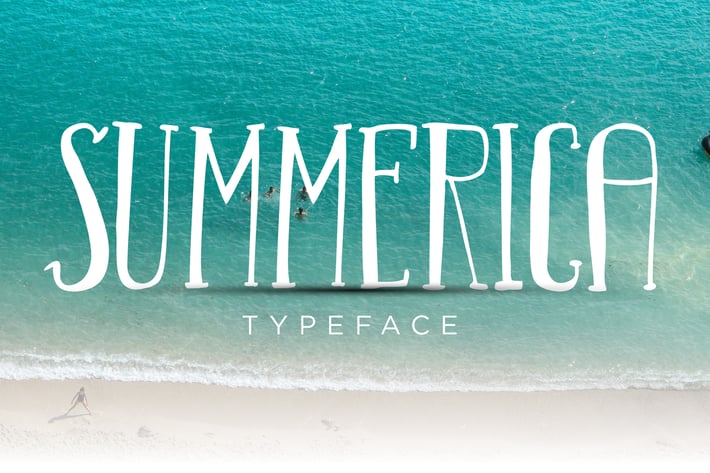
Summerica Typeface
Give your designs an authentic handcrafted feel. “Sumerica Typeface” It will be great for Logotypes, Posters, Digital Lettering Arts, Clean design, Branding Design, Sign, etc.